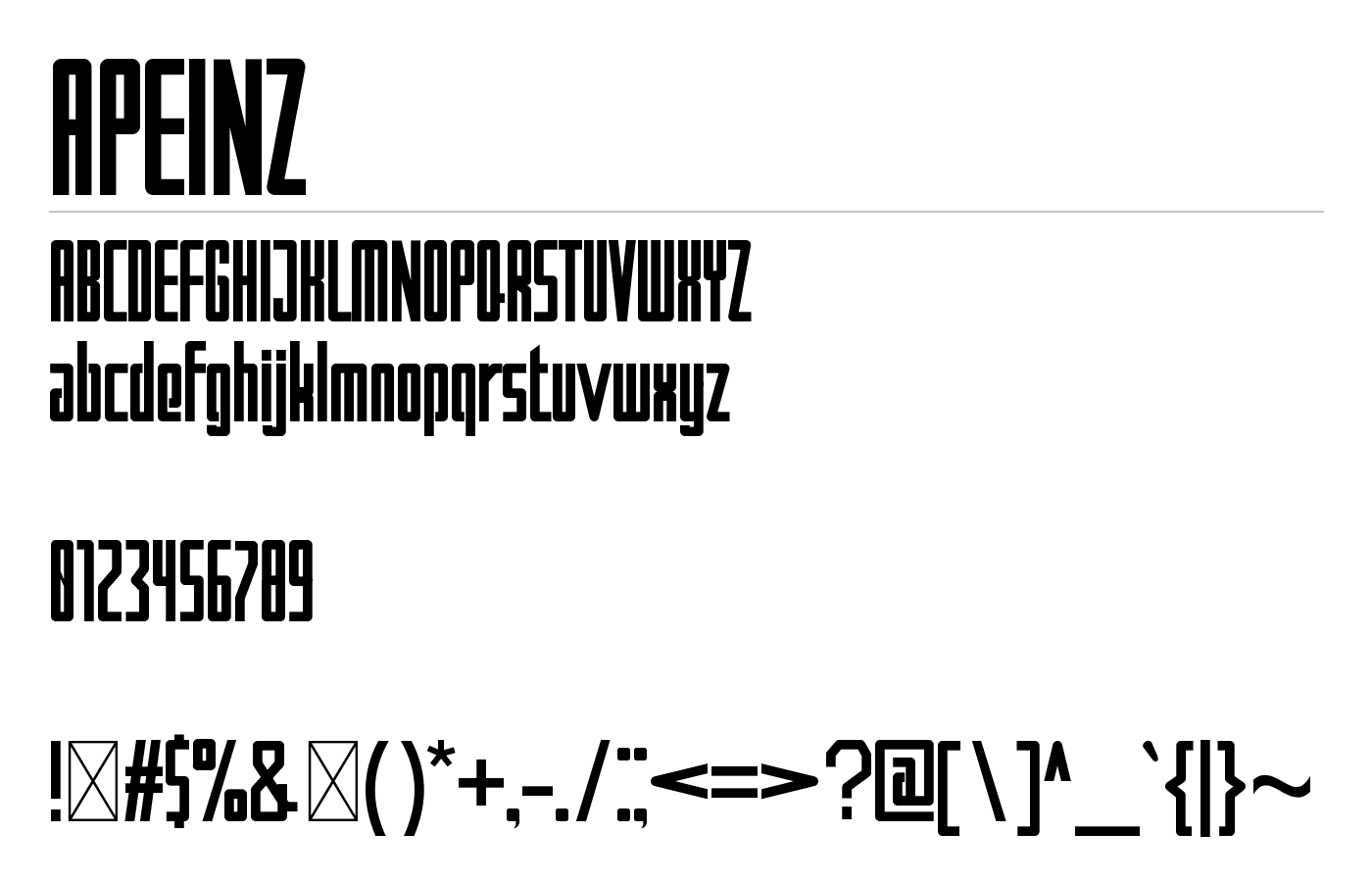
APEINZ is a bold, condensed sans-serif font with a strong, modern character, featuring tall, narrow letterforms and uniform stroke weights that create a striking, industrial appearance. Its geometric shapes and sharp edges give it a futuristic vibe, making it ideal for attention-grabbing headlines, logos, and branding that demand a sense of power and contemporary style. This font works especially well in designs that aim for a sleek, urban, or tech-inspired mood.
APEINZ Font
About APEINZ Font
| Font family | APEINZ Font |
| Designer | Arif Purnomo |